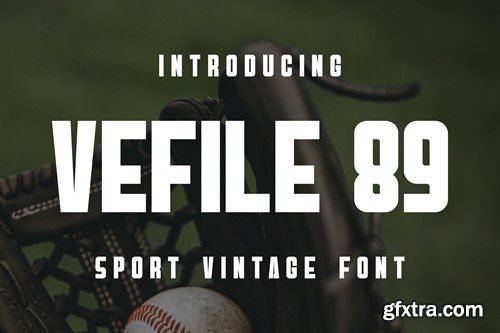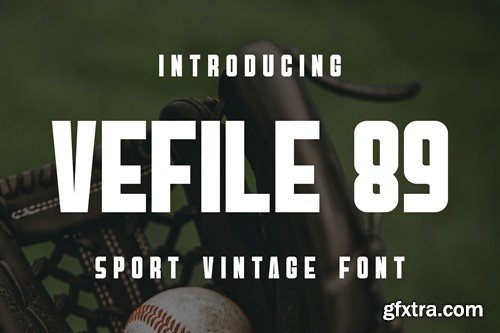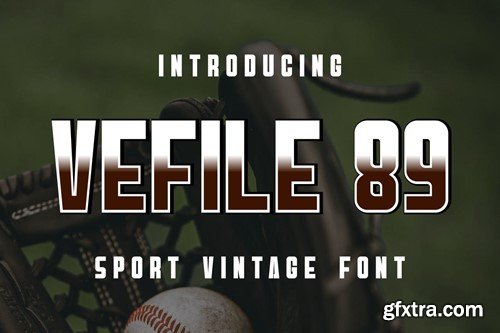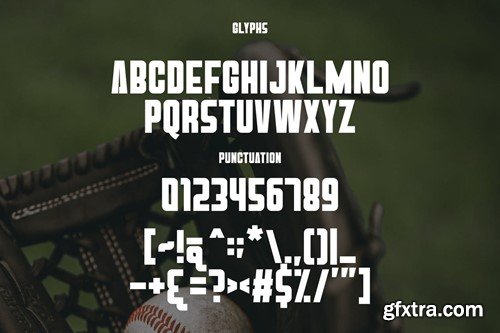
Vefile 89 Font PRNAEU5
Vefile 89 Font
Is a font made from a combination of vintage + techno. creates a sturdy and antique appearance. This font can be applied to jobs such as: Using monospace Kerning / means it is possible to You can set the spacing yourself. Available in .OTF and .TTF formats. Thank You